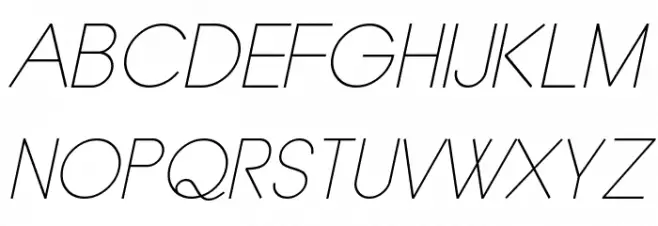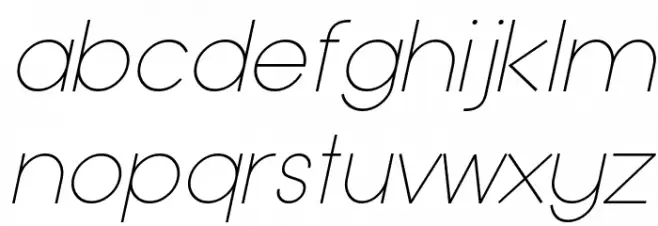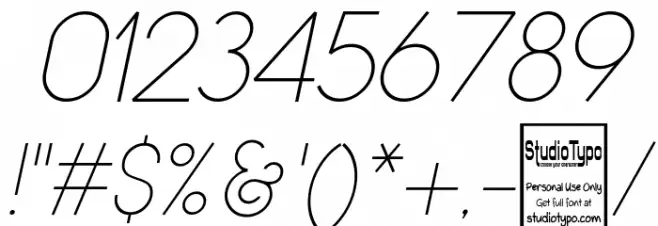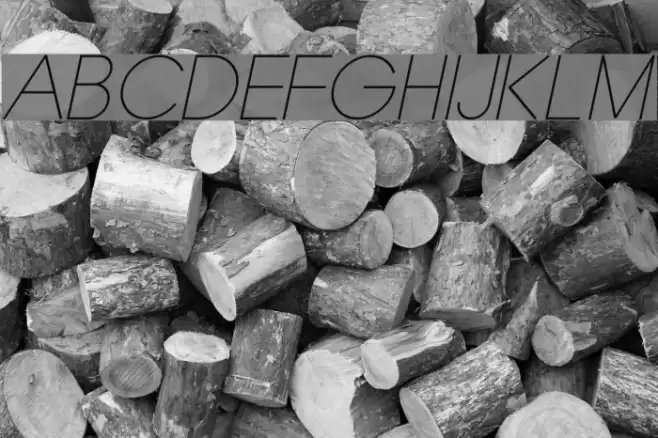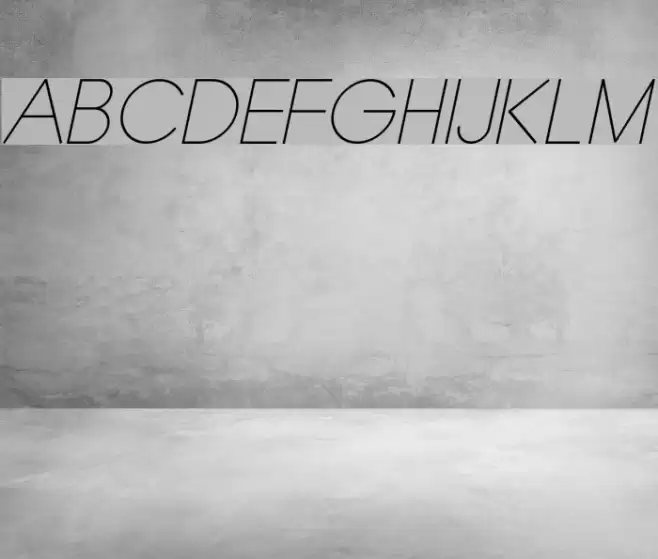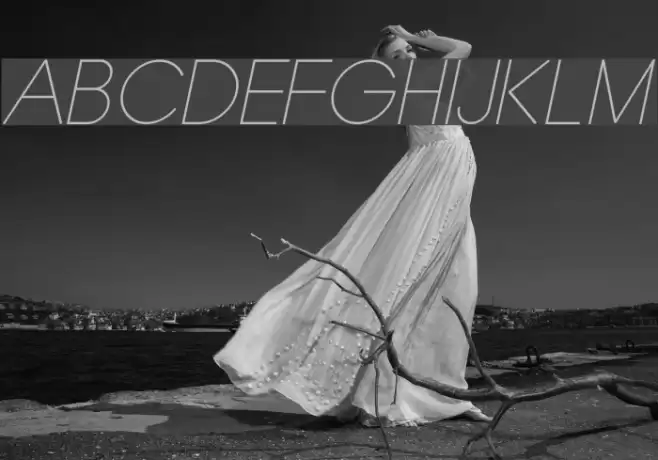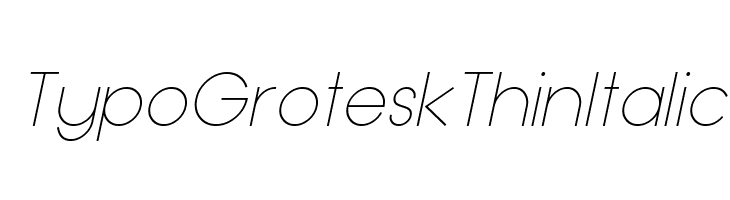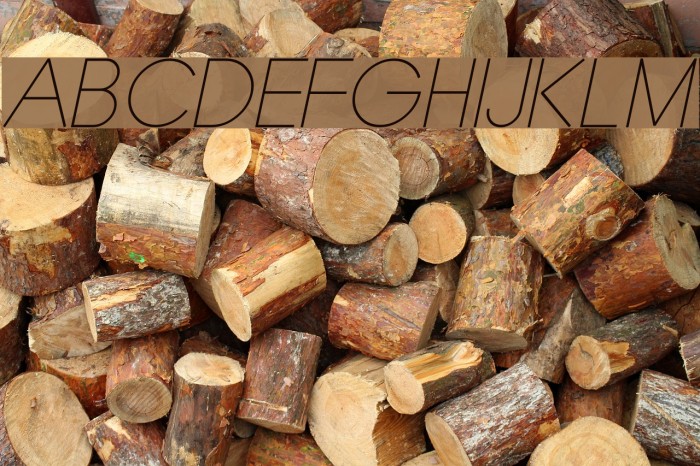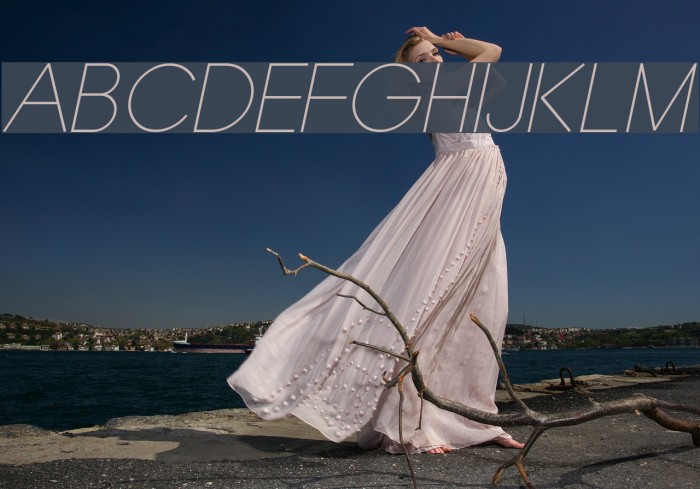
Typo Grotesk Thin Italic
This font exhibits a sleek and modern aesthetic with its thin, elongated letterforms. The italic style adds a sense of motion and elegance, making it suitable for contemporary design projects. The uppercase and lowercase letters maintain a consistent height, contributing to a harmonious appearance. The numerals are clear and legible, while the special characters are designed with the same minimalist approach. Overall, this font's thin strokes and italic slant give it a refined and sophisticated look, ideal for projects that require a touch of modernity and style.
A sleek, modern, thin italic font with elongated letterforms.
- Proposed Projects: Ideal for fashion magazines, modern branding, elegant invitations, and minimalist web design.